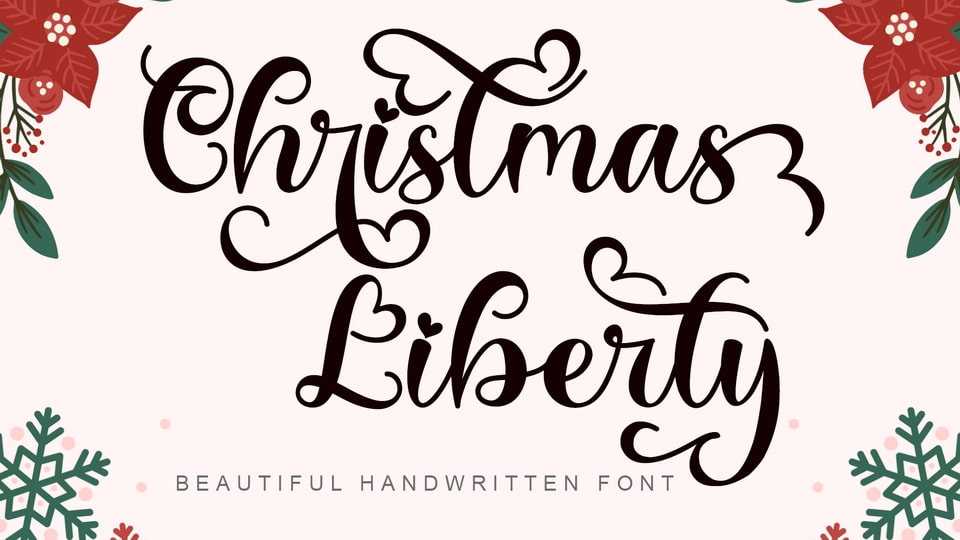
Download Christmas Liberty font, a unique and beautiful handwritten typeface. It’s perfect for banners, posters, prints, branding, stickers, logos, Christmas invitations, weddings, and more.